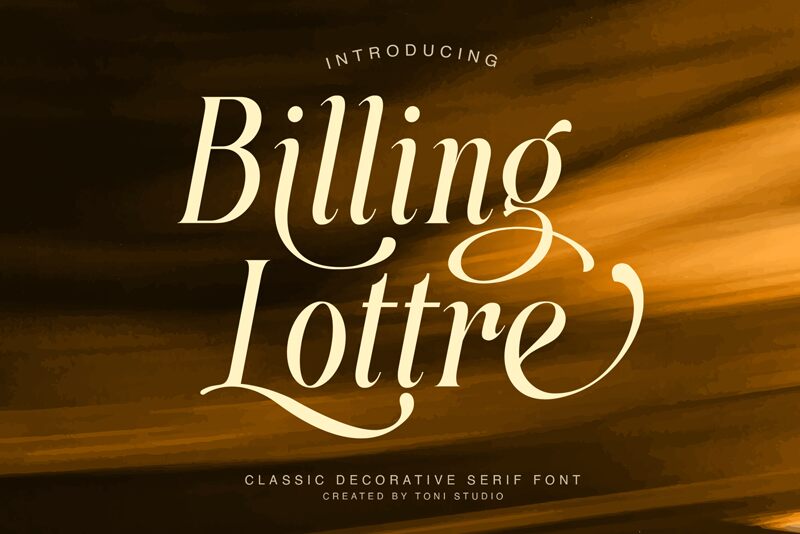
Billing Lottre font by ToniStudio is a captivating serif with a distinctly condensed design, exuding elegance and sophistication. This font's refined curves and classic style make it ideal for projects that demand a touch of class. Its unique aesthetic seamlessly blends traditional serif elements with modern flair, making it perfect for upscale branding, editorial layouts, and luxurious invitations.
Italic serif with a decorative style, with swashes, alternates and ligatures to add an elegant impression, designed in collaboration with Joko Setiono and Madebytonistudio.